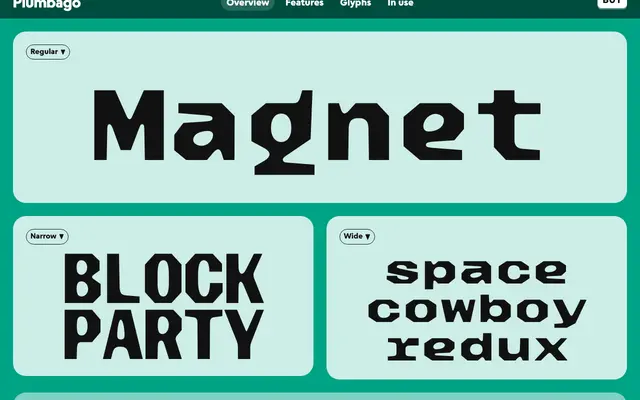
Plumbago
XYZ Type · Zrinka Buljubašić, Travis Kochel, Chris Skillern · 2024
A monospaced display face with octagonal letterforms and sporadic slab serifs, originally commissioned for the Brand New Conference 2024 identity.
Designed by Zrinka Buljubašić, Travis Kochel and Chris Skillern for UnderConsideration's Brand New Conference 2024, Plumbago draws from Salt Lake City's street grid and the lettering once used on its streetcar network. Organic octagonal shapes sit on a strict monospaced grid, with tapered strokes and unexpected character structures giving each glyph its own dynamic movement within a disciplined rhythm. Currently at version 0.1 in a single weight across Narrow, Regular and Wide widths, the family is in active development with further styles and expanded language coverage planned.
Plumbago uses organic octagonal letterforms on a monospaced grid with sporadic slab serifs and tapered strokes, placing it firmly in display territory with a geometric-slab character.